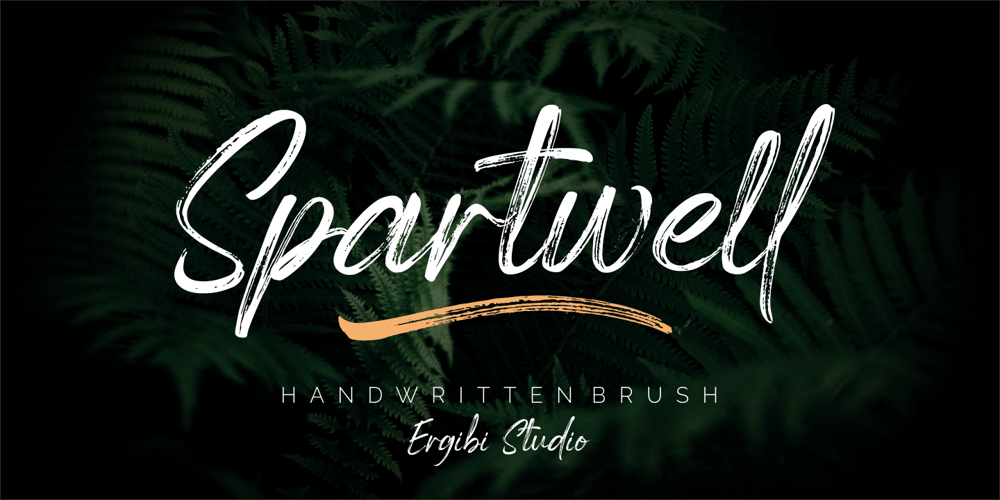
Spartwell Font Family was designed by Riyadh Rahman and published by Ergibi Studio. Spartwell contains 2 styles and family package options. Spartwell is a handwritten script with a brush effect that comes with a style that seems real. This font style is inspired by luxury goods and brands, making for many possibilities with your latest project. Spartwell is perfect for logos and branding, photography, invitations, watermarks, advertisements, product designs, stationery, wedding designs, labels, product packaging, special events or anything that requires handwritten content.Spartwell also contains some lowercase characters that have swash, as well as multi-lingual support. This can be accessed easily via opentype in Photoshop / Illustrator.Kind regards Ergibi Studio